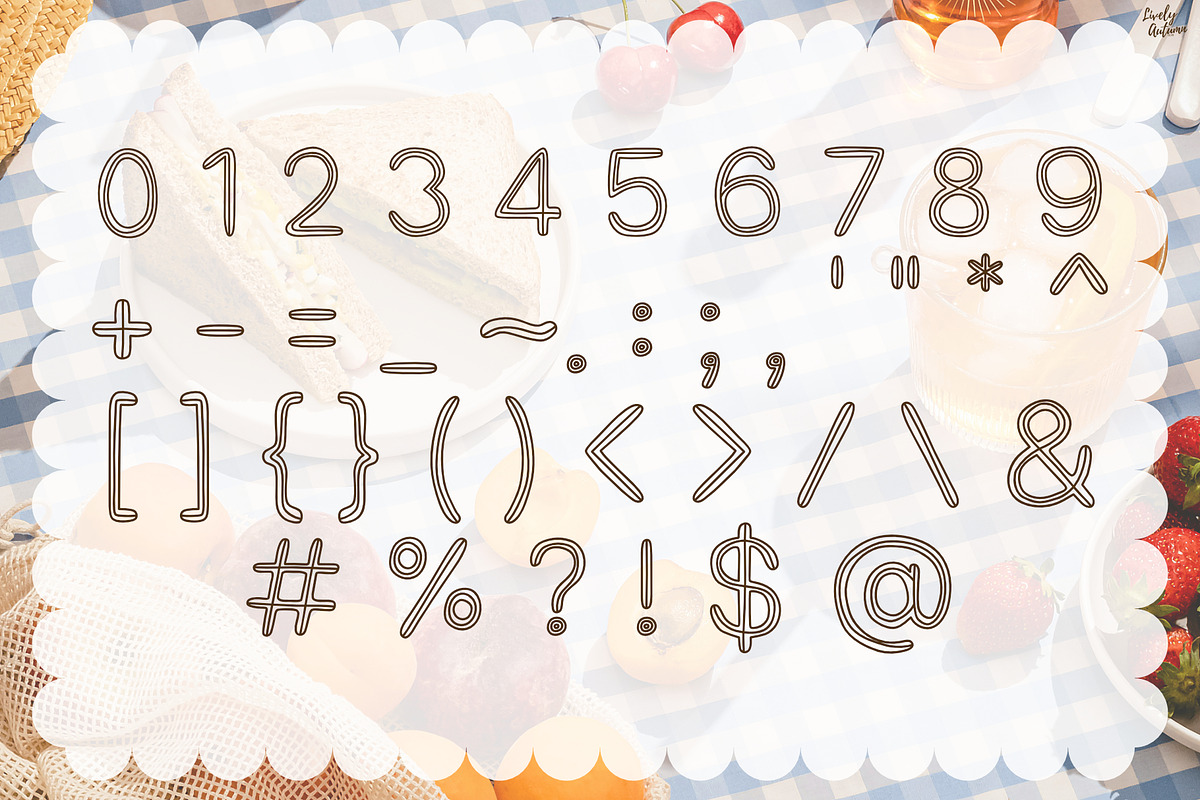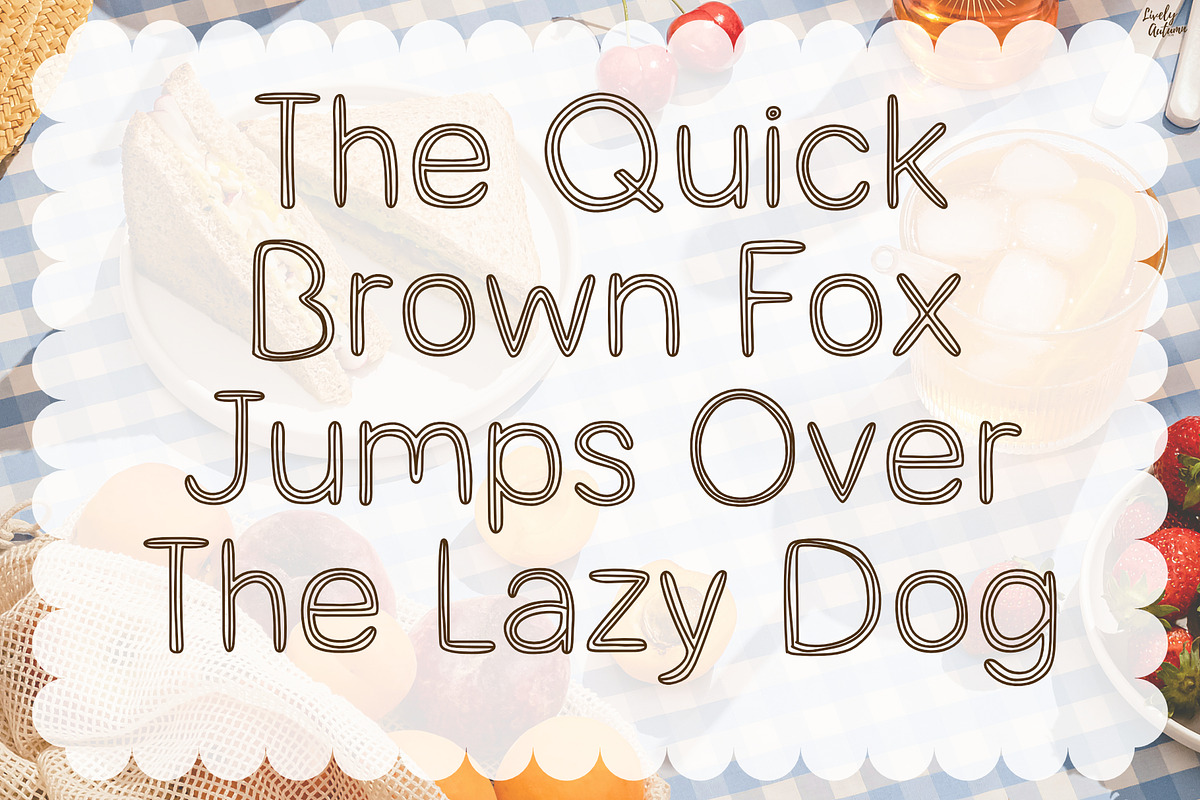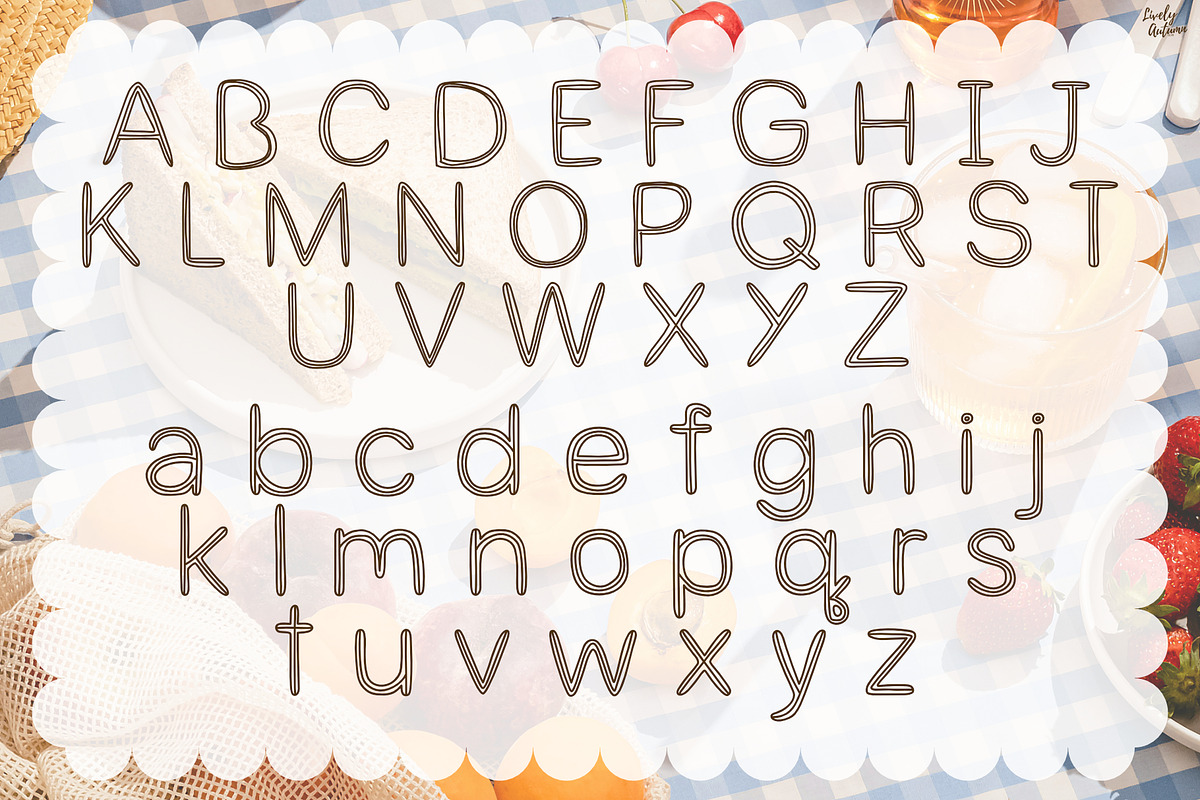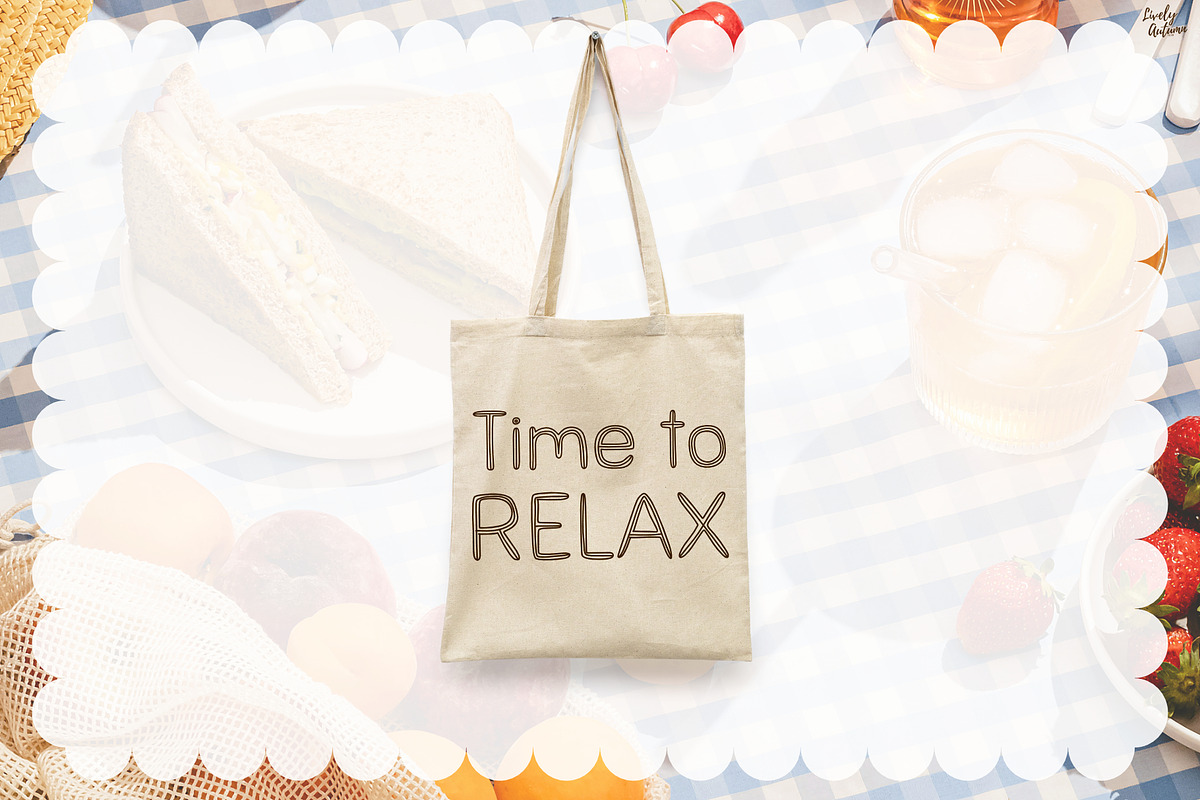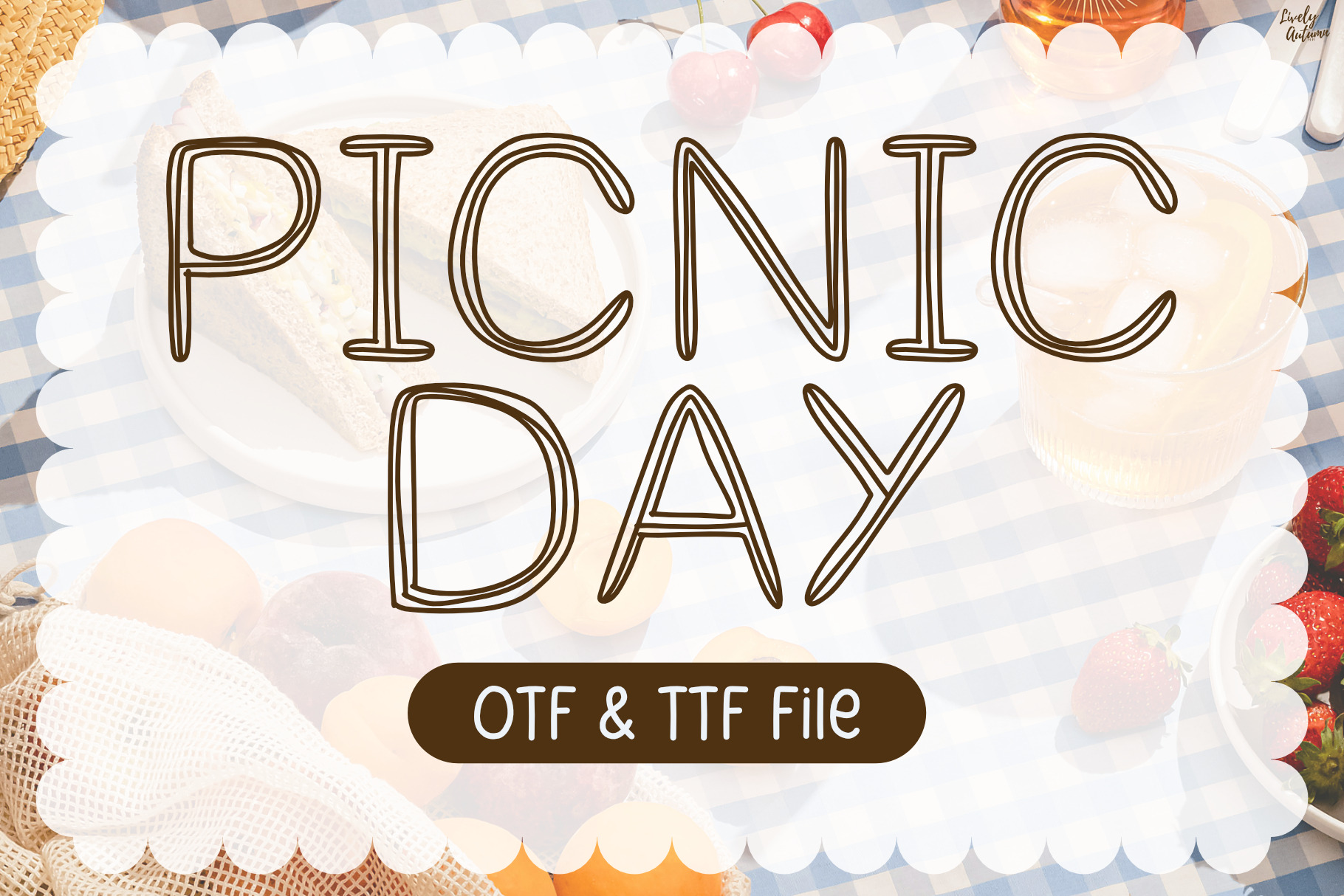
Picnic Day | Handwritten Font
Picnic Day font is a playful doodle handwritten font with an inner line inside each letter. Perfect for your personal projects and various projects. From invitations to posters, social media graphics, journals, stickers and much more.
Font includes: uppercase, lowercase, numbers, and punctuation